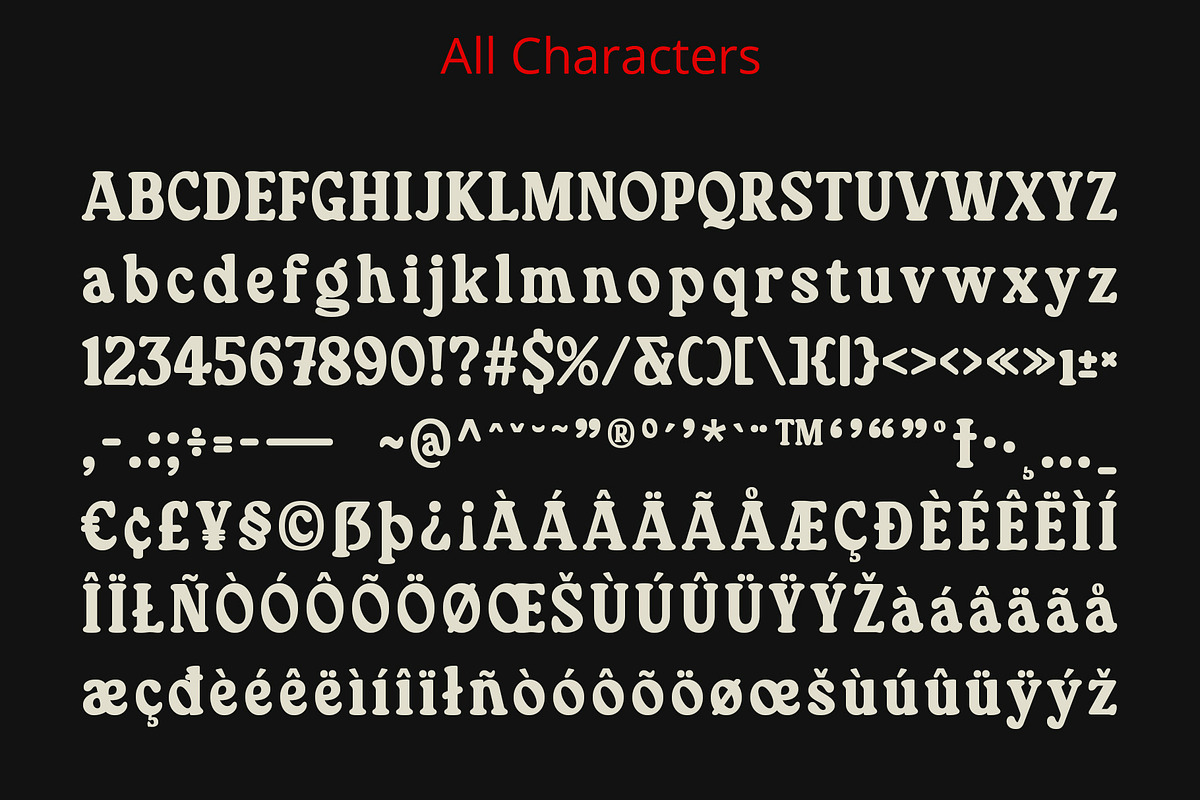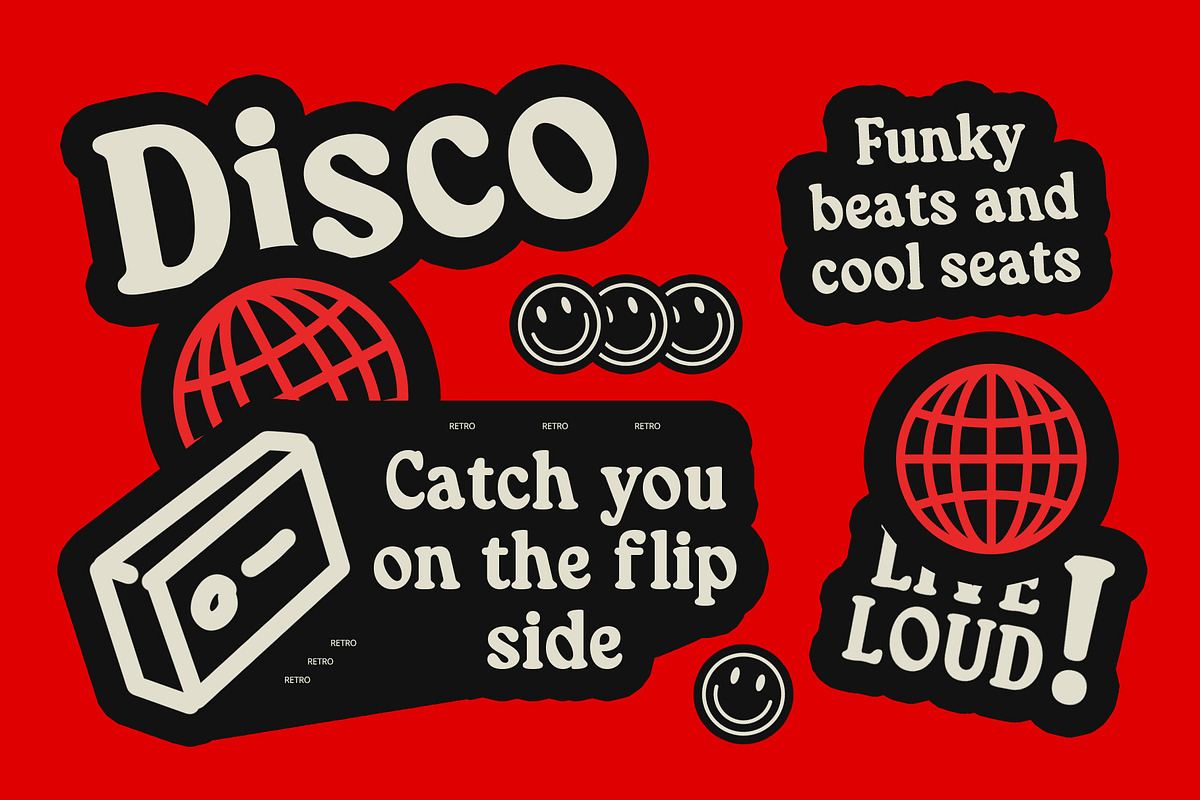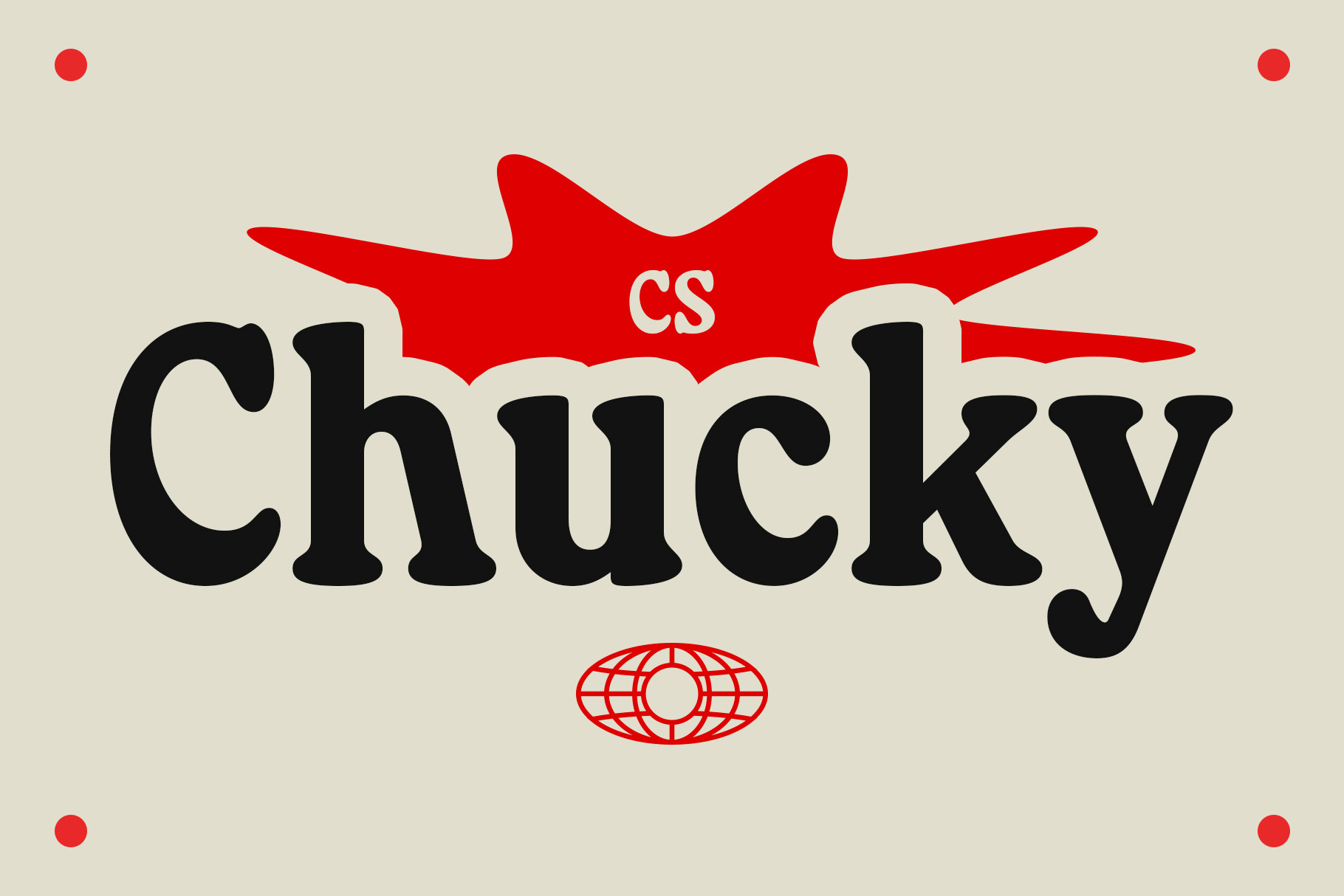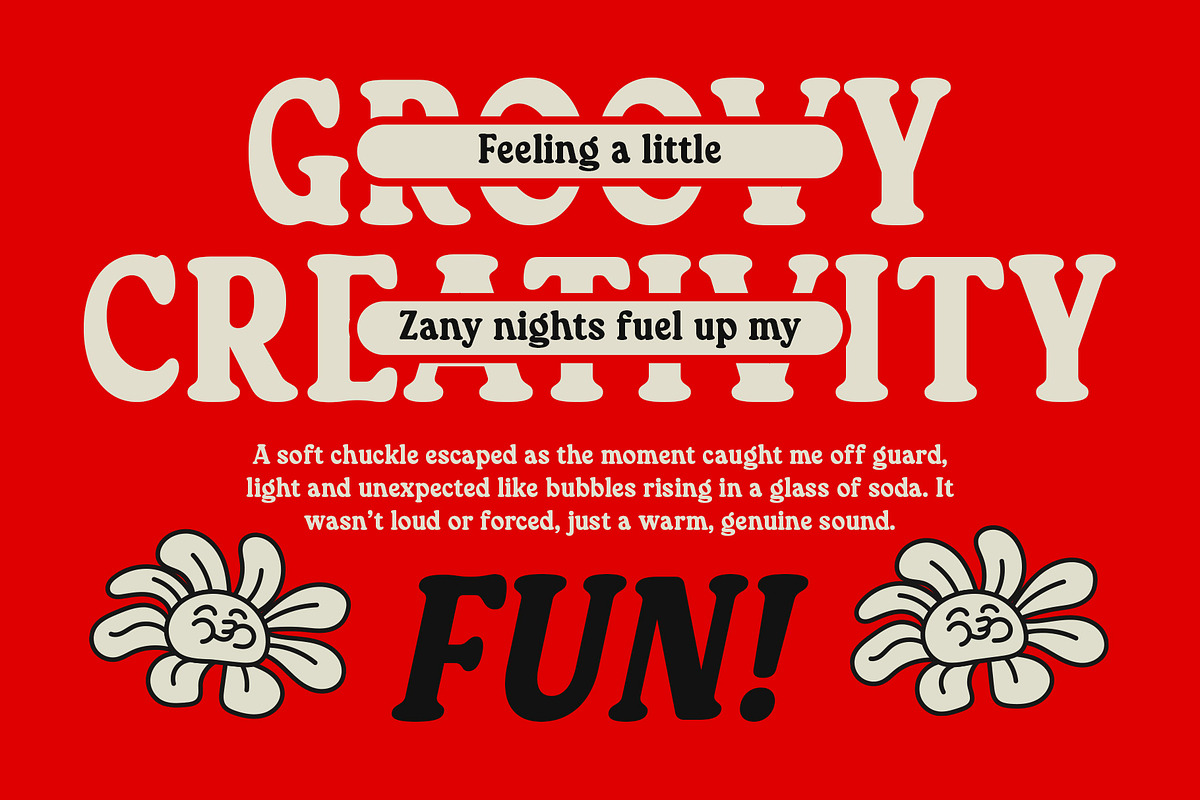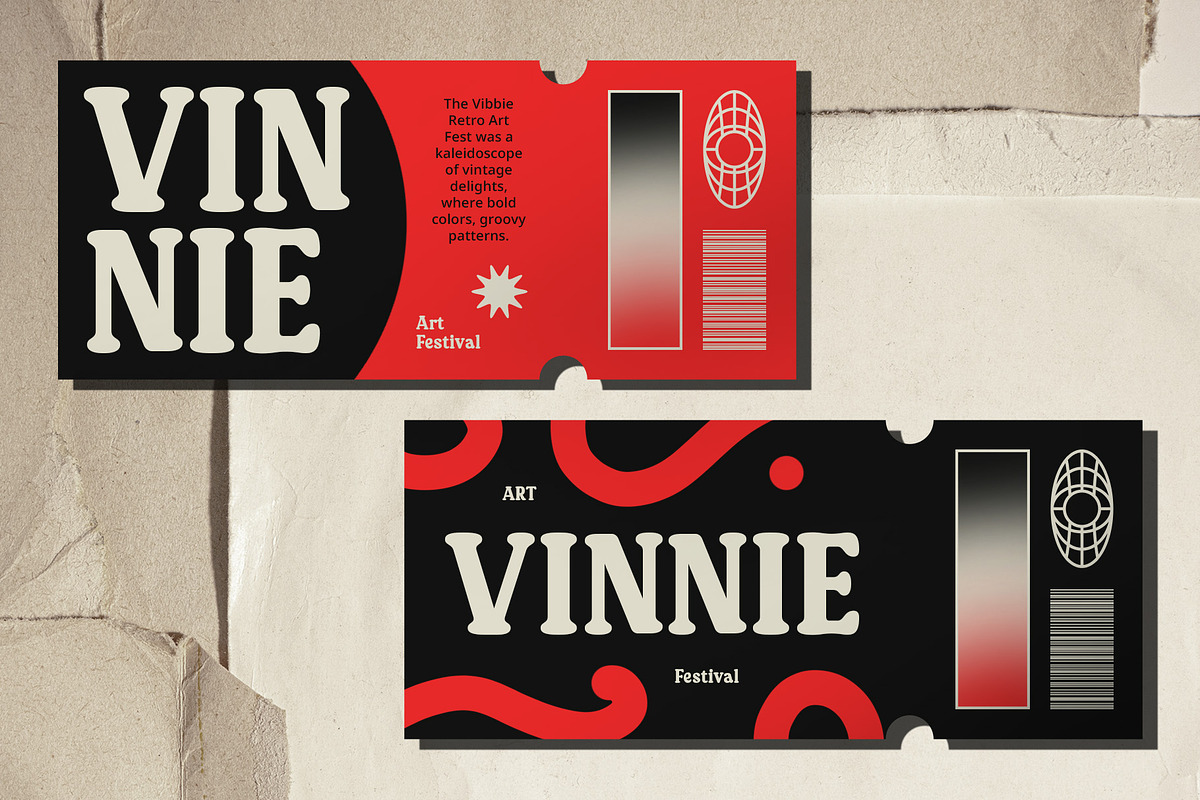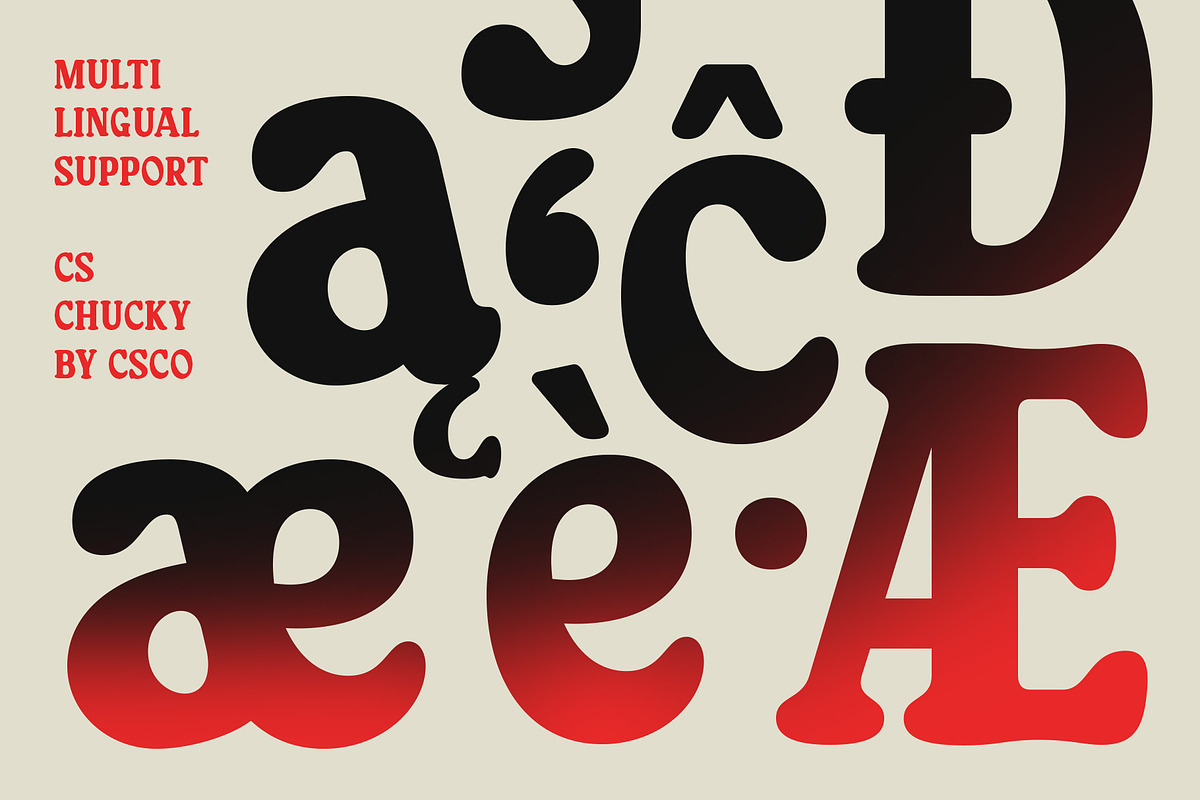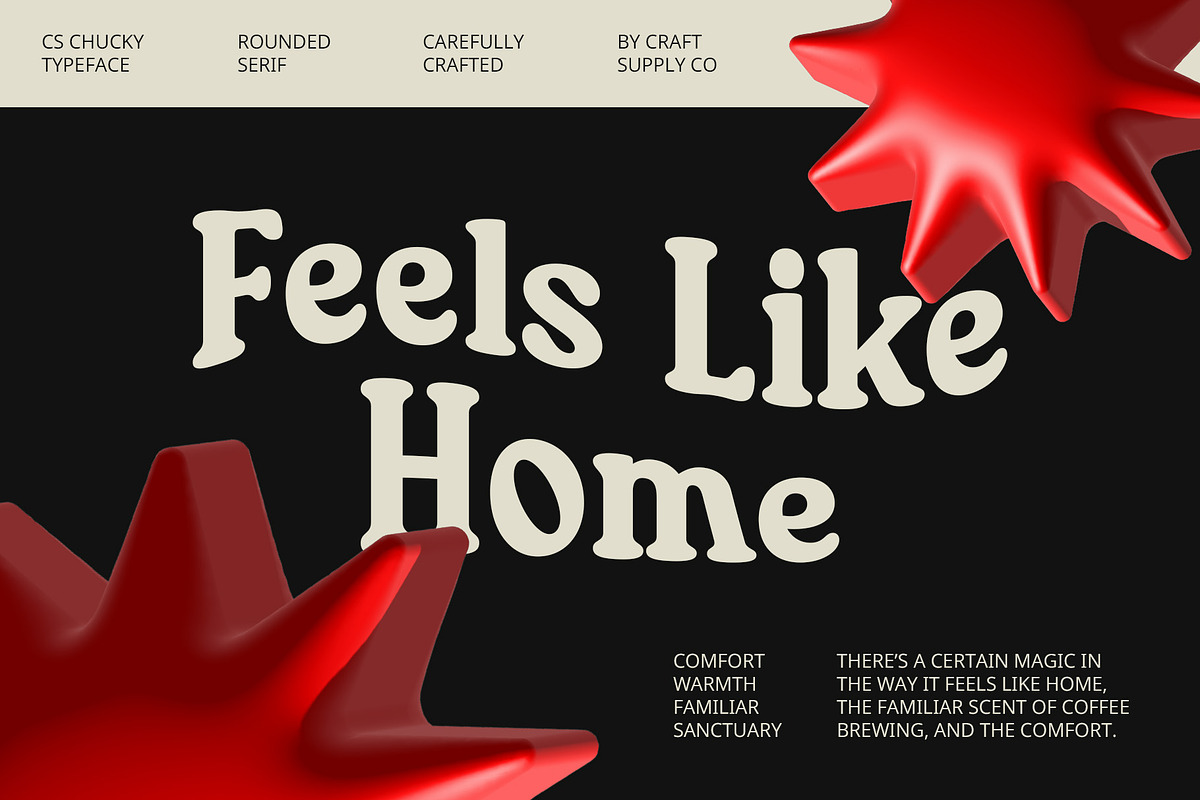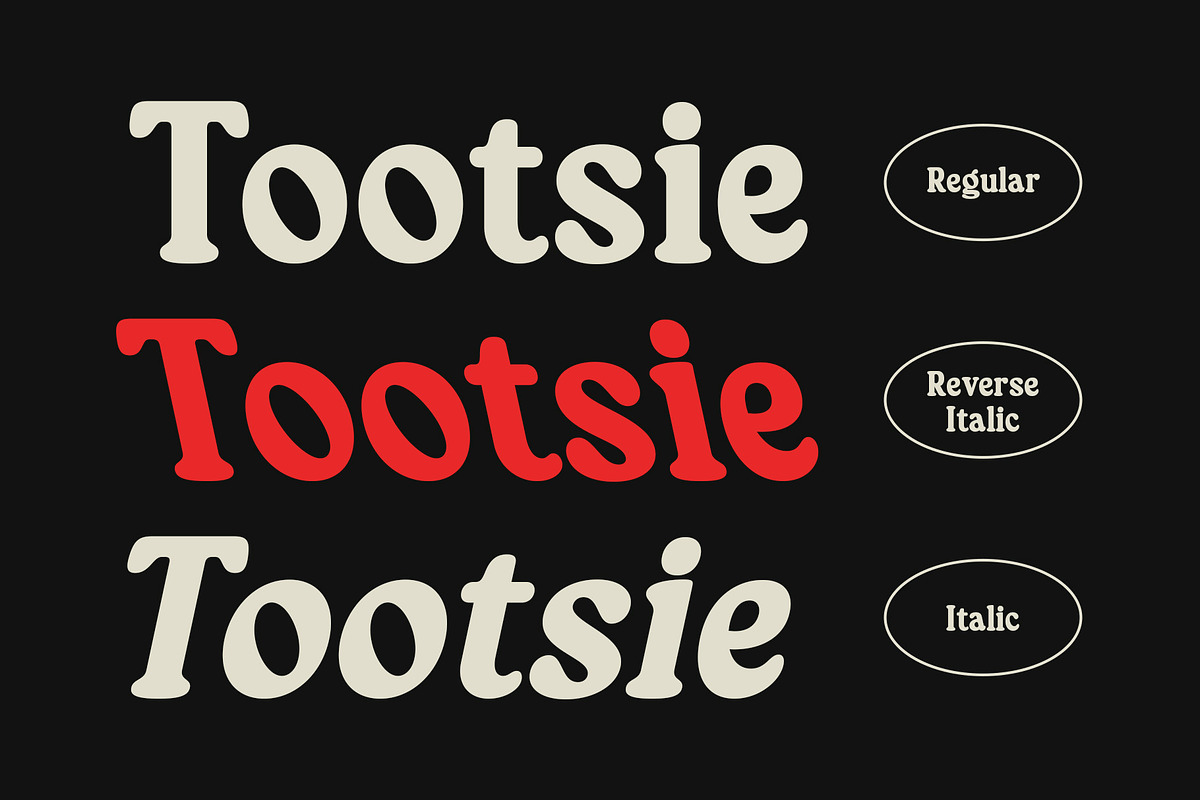
CS Chucky – Retro Font
CS Chucky Font: Retro Slab Serif Typography
Bold, Funky, and Nostalgic CS Chucky is a classic slab serif font that effortlessly blends boldness with charm. Featuring thick, square serifs with rounded edges, this font combines strong, impactful letterforms with the warmth of soft curves, resulting in a design that is both bold and approachable. The 90s retro influence adds a cheerful, nostalgic energy, evoking the spirit of the vibrant, playful designs from that era.
A Playful Nod to the 90s With its unmistakable 90s retro aesthetic, CS Chucky channels the fun and rebellious vibe of that decade. The rounded edges of the serifs bring a sense of softness and playfulness, making this font perfect for designs that aim to capture the energetic and optimistic atmosphere of the 90s. Whether it’s music posters, branding for nostalgic events, or bold graphic designs, CS Chucky has the right touch of retro fun.
Bold and Approachable Design The combination of thick serifs and rounded shapes creates a strong and inviting look. CS Chucky exudes confidence and warmth, making it versatile for projects that require a bold statement with a friendly and approachable appeal. Its sturdy construction ensures that it stands out in both large headlines and small text, making it an ideal choice for a variety of applications.